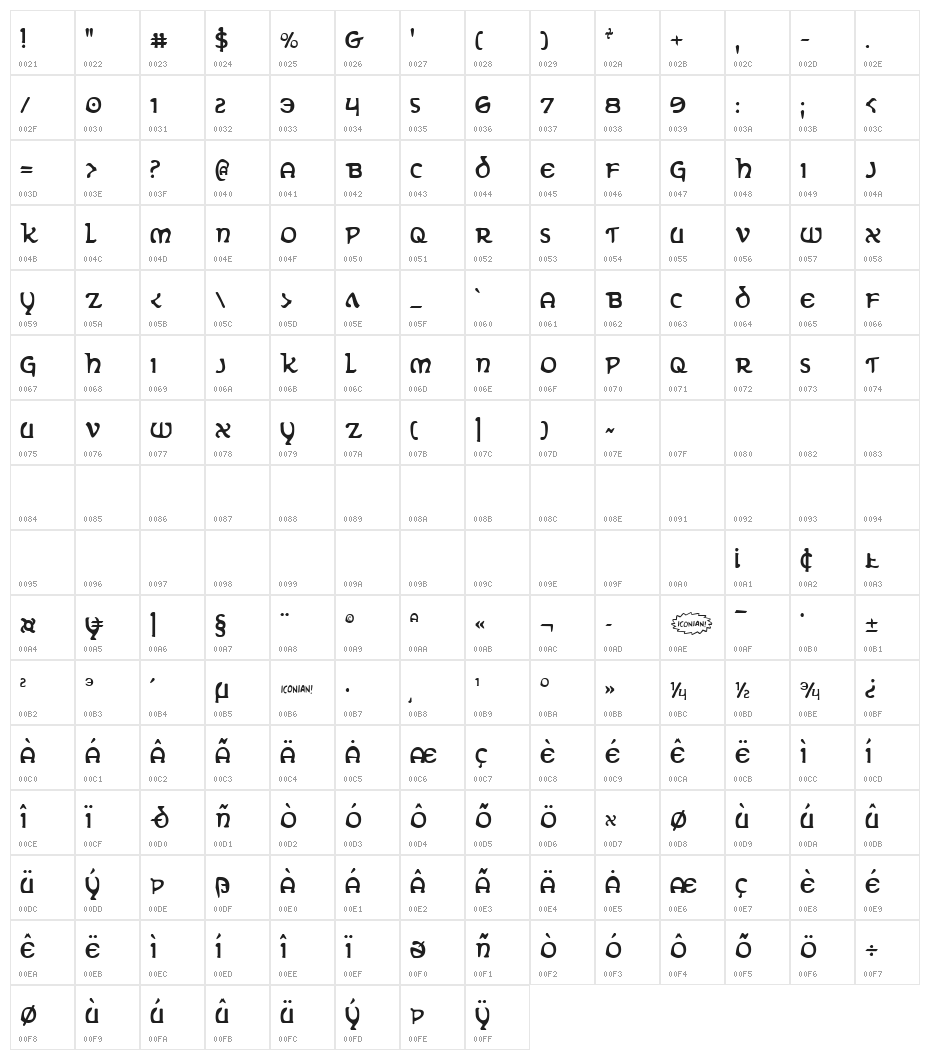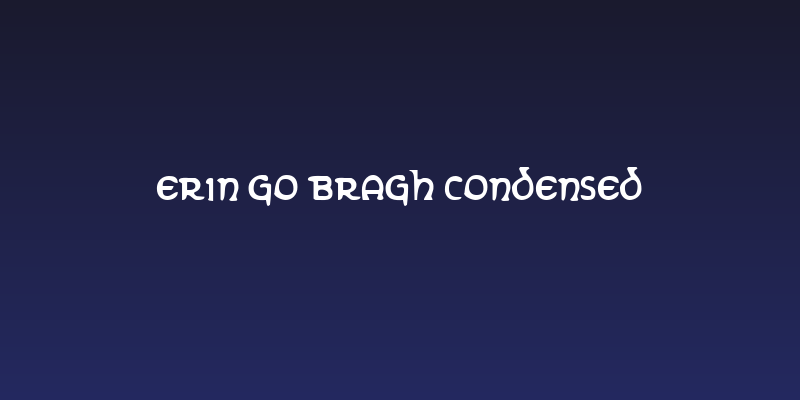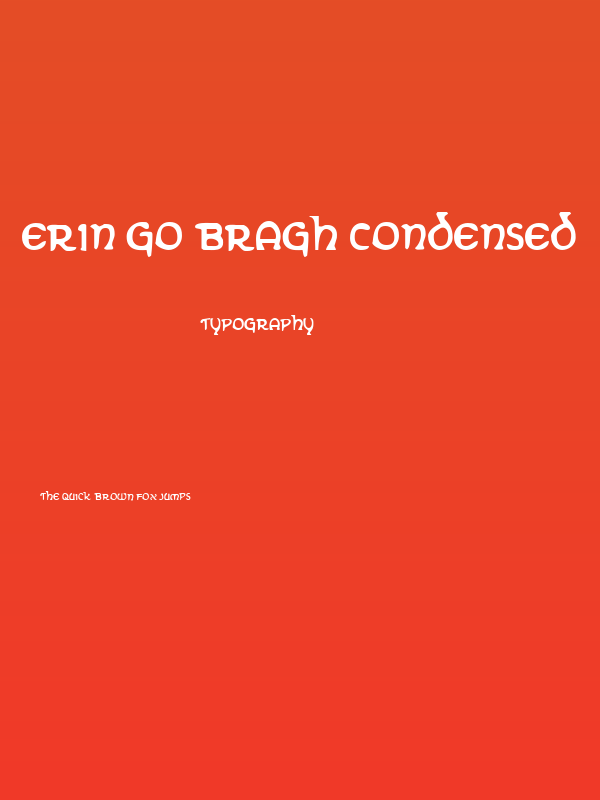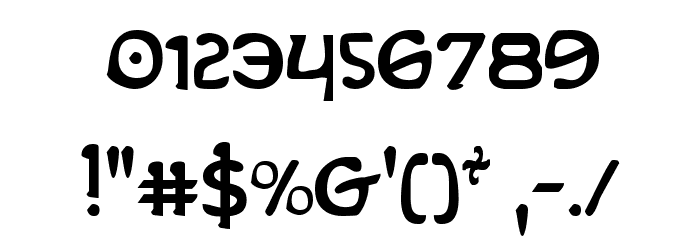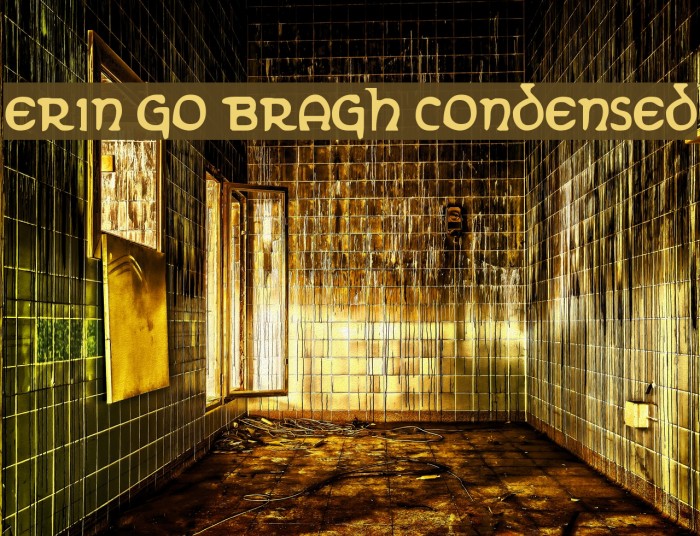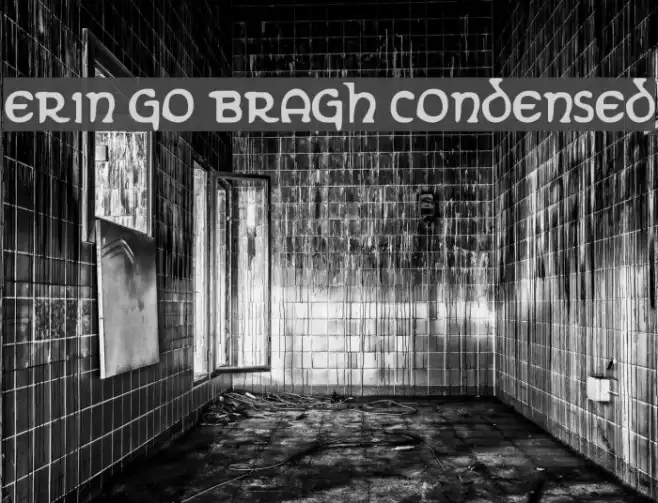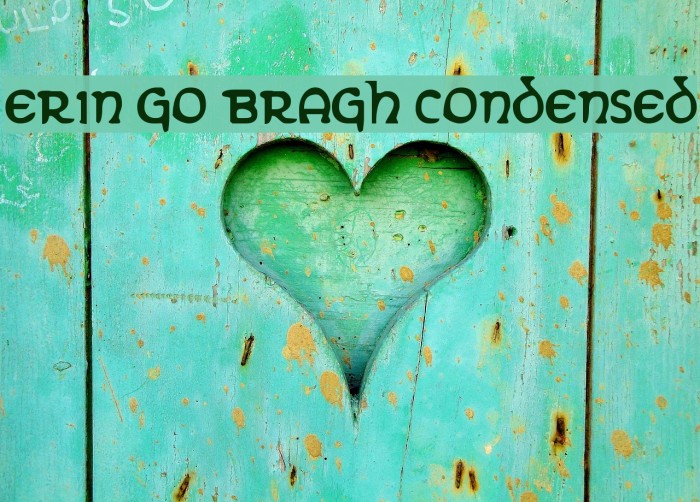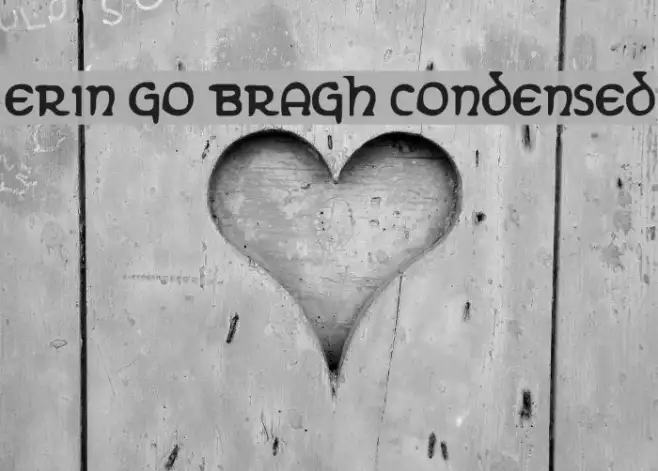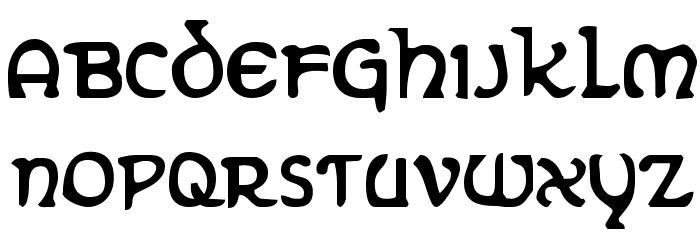
Erin Go Bragh Condensed Font
Erin Go Bragh Condensed Description
This font features a unique and playful design with a condensed style, characterized by its bold and rounded letterforms. The characters exhibit a whimsical flair, with some letters having distinctive curves and loops that add to its charm. The uppercase and lowercase letters maintain a consistent style, while the numbers and special characters complement the overall aesthetic. The font's condensed nature makes it suitable for creating impactful headlines and titles, while its playful elements can add a touch of fun to various design projects.
| Overall Style | Playful, Decorative |
| Proposed Projects | Ideal for children's books, playful branding, event posters, and creative packaging designs. |